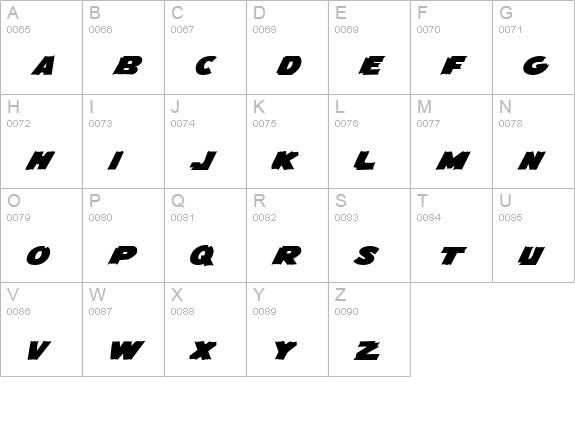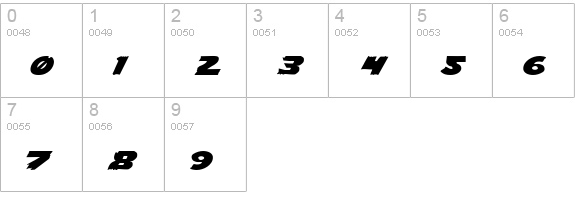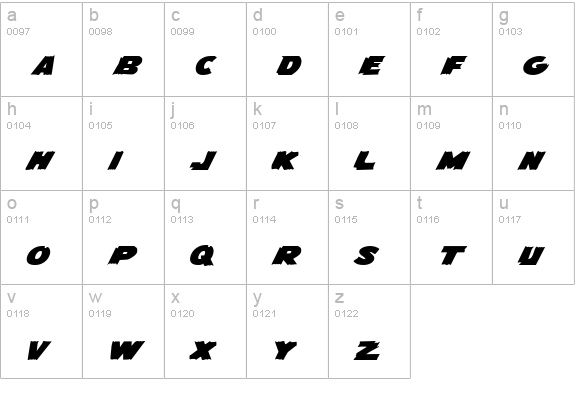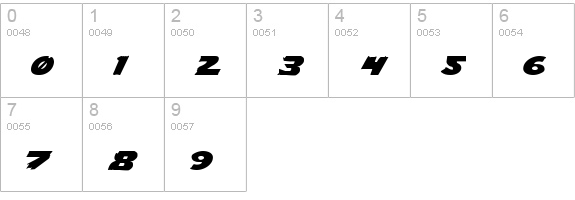
Flying Leatherneck Expanded is a distinctive, extended-width variant in the Flying typeface family \xE2\x80\x94 well suited to design and typography projects.
Flying Leatherneck Expanded font is a bold and rugged typeface inspired by military aviation and vintage designs. With its wide spacing and strong presence, this font is perfect for adding impact to your projects. The extended character set allows for versatility in creating headlines, posters, and other display materials that demand attention. What sets Flying Leatherneck Expanded font apart is its distinct style that captures the essence of adventure and strength. The tall letterforms and sharp angles exude a sense of power and authority, making it ideal for military-themed designs and masculine branding. This versatile font is available for free download at FontsMarket.com, making it accessible for designers and creatives looking to add a touch of boldness to their work. Whether you're working on a project that requires a no-nonsense approach or aiming to make a statement with your typography, Flying Leatherneck Expanded font is sure to deliver the impact you need.